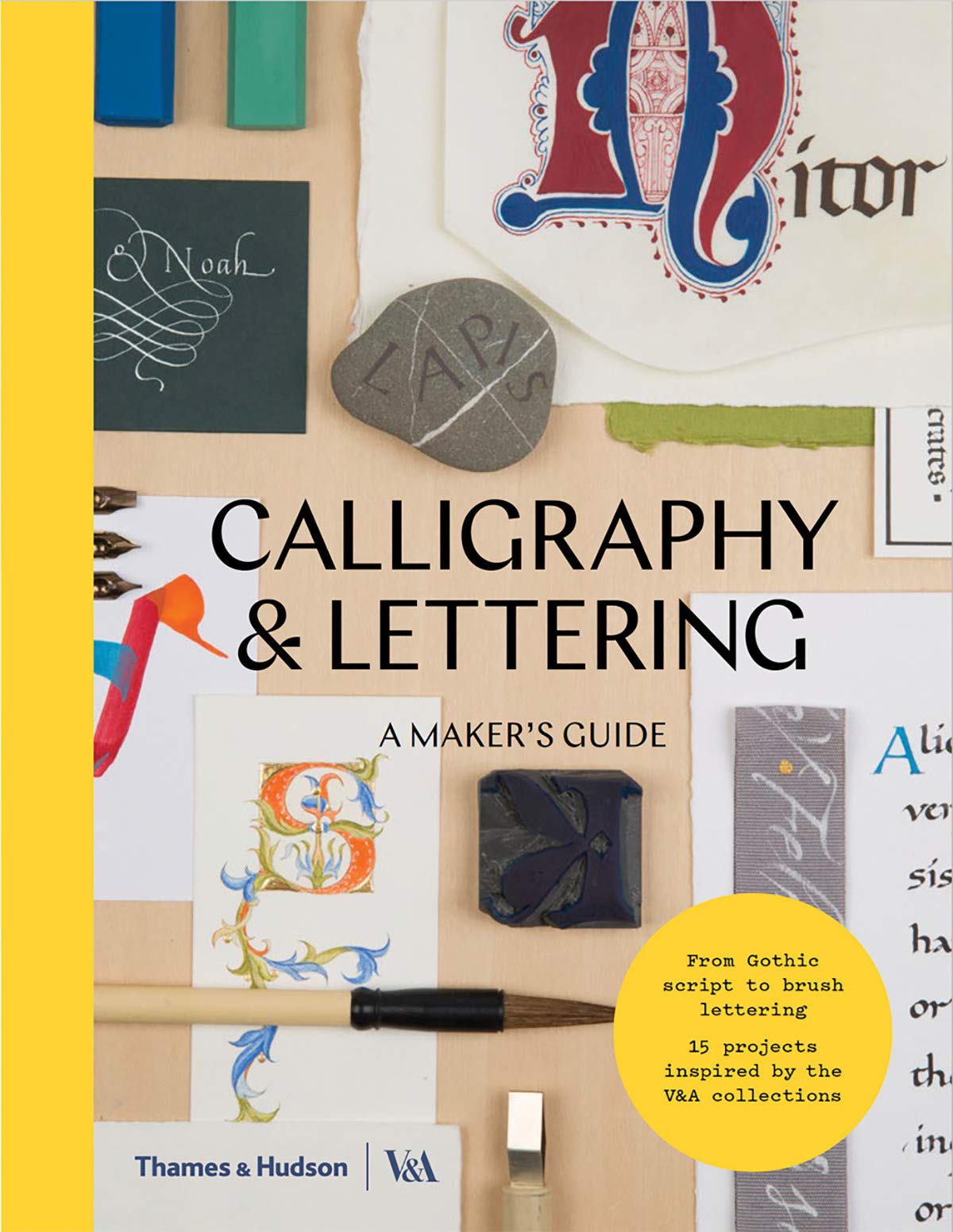
Calligraphy & Lettering: A Maker's Guide
From Gothic script to brush lettering: fifteen calligraphy projects inspired by the V&A's collections
Aimed at anyone wanting to learn more about the increasingly popular art of calligraphy and lettering, this practical introduction showcases many fine examples in the V&A’s collection, and will give readers a new understanding and appreciation of letterforms. Fifteen beautiful step-by-step projects each take their cue from a different technique or tradition. Detailed instructions lead readers through the essentials of classic calligraphy styles such as Gothic and Italic lettering, on to vintage-inspired signwriting and chalkboard design and even into the elegant, image-led worlds of illuminated capitals and zoomorphic calligraphy.
Designed by leading calligraphy teachers and practitioners, the projects include a handmade booklet, banner, menu, gift tags, a monogram stamp, greetings cards and more. Each project offers tips on how to take steps towards developing one’s own designs. This book is packed with inspiration and practical advice to enable anyone to find new creative direction through the timeless arts of calligraphy and hand-lettering.
Calligraphy & lettering today, Denise Lach • Tools & materials • Getting started • Skeleton letterforms • Making a layout • Making a finished piece • CLASSIC CALLIGRAPHY: Roman capitals • Foundational hand • Gothic script • Italic script • CAPITALS & INITIALS: Decorated letters • Illuminated letters • Embossing & debossing • Monograms • DECORATION & DISPLAY: Pen flourishes • Chalkboard lettering • Vintage sign writing • Painted lettering • Everyday penmanship • BEYOND WESTERN CALLIGRAPHY: Japanese calligraphy • Zoomorphic calligraphy • Glossary; About the makers; Index; Picture credits & acknowledgments